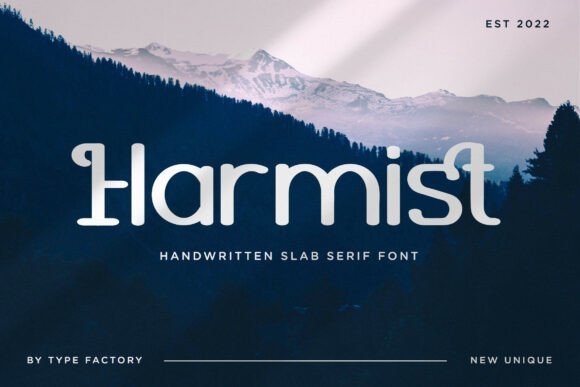
The Birth of a New Favorite: Introducing Harmist Font
As designers, we’ve all been there – staring at a blank page, trying to find the perfect font to match our vision. It’s that moment when you finally stumble upon a typeface that speaks to you, and everything clicks into place. For us, that moment came when we discovered the Harmist Font – a beautiful blend of bold slab serifs and soft, organic curves that seem to whisper “relax, you’ve got this.”
Harmist Font is more than just a pretty face; it’s a versatile tool designed to balance structure and playfulness. Perfect for branding, packaging, and editorial layouts, this typeface is a game-changer for designers looking to add a friendly yet sophisticated touch to their work. Whether you’re working on a lifestyle brand, food packaging, or apparel design, Harmist Font is sure to become your new go-to.
Harmist Font Key Features
- Font Family: Harmist comes in a range of styles, including Regular, Italic, Bold, and Bold Italic.
- Character Set: Supports a wide range of languages, including Latin, Cyrillic, and Greek alphabets, with over 2000 glyphs.
- Unique Characteristics: Harmist features a unique blend of modern and traditional design elements, with distinctive letterforms and a highly legible x-height.
Harmist Font Review
Harmist Font has a unique charm to it, and I appreciate the effort put into creating a distinctive aesthetic ✨. The font’s modern and elegant design makes it perfect for creative and tech-related projects. The font’s flexibility in terms of size and spacing is also noteworthy, allowing for a wide range of applications.
- Unique and modern design ✨
- Perfect for creative and tech-related projects
- Flexible in terms of size and spacing
However, there are some limitations to consider ⚠️. The font’s readability can be affected at smaller sizes, making it less suitable for body text. Additionally, the font’s design may not be to everyone’s taste, and some users may find it too bold or overpowering.
- Readability issues at smaller sizes ⚠️
- Design may not be to everyone’s taste
- Can be too bold or overpowering
Overall, Harmist Font is a great choice for designers who want to add a touch of modernity to their projects. While it may have some limitations, its unique design and flexibility make it a valuable addition to any font library.
Getting the Most Out of Harmist Font
For the best results, use Harmist Font in conjunction with bold or italic styles to create visual interest. Experiment with different font sizes and colors to create a unique look.
Harmist Font is ideal for use in branding, advertising, and digital media. Its unique style and versatility make it a great choice for creating eye-catching headings and titles.